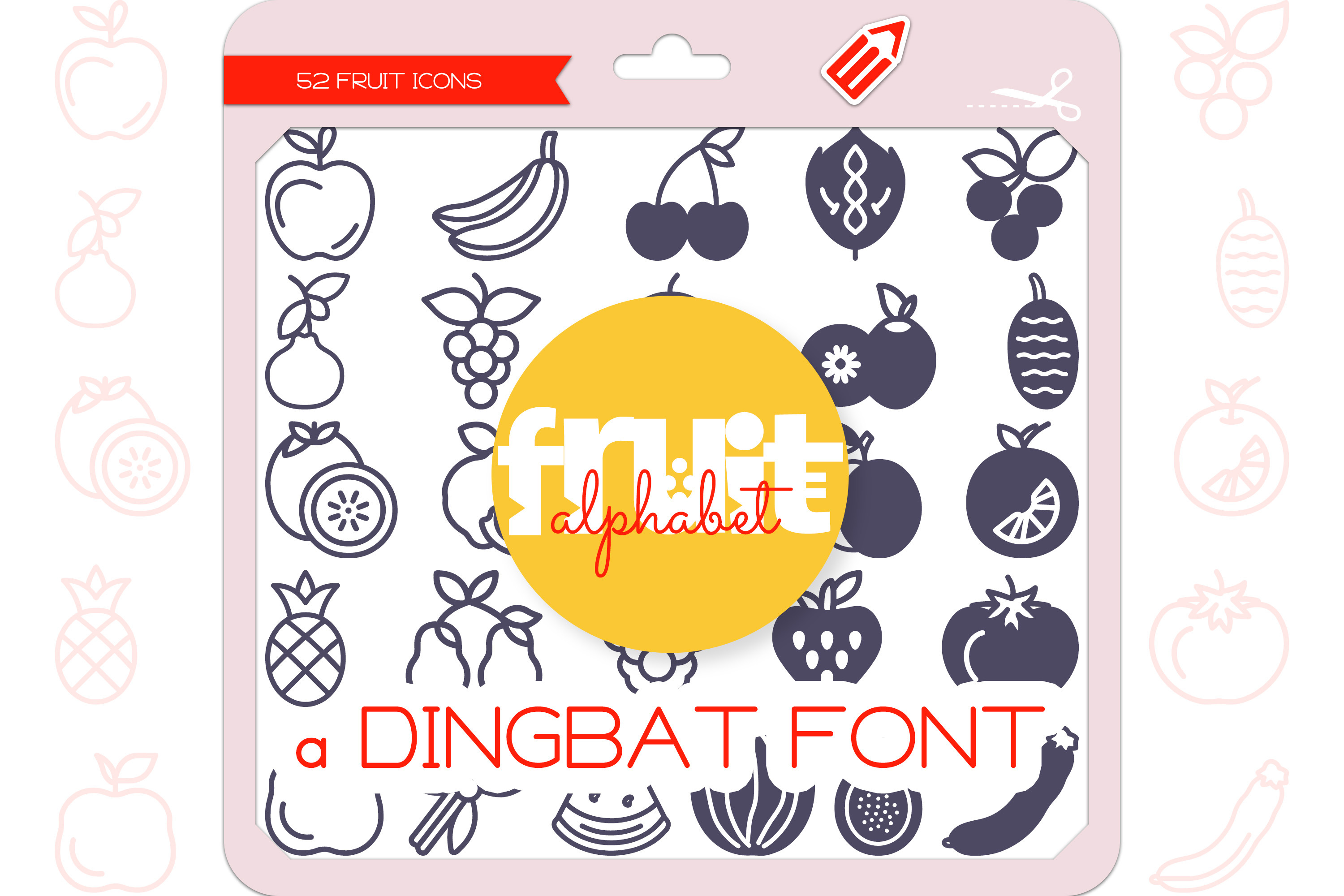
Fruit Alphabet - Dingbat Font
Fruit Alphabet is a unique and cute dingbat font, each Fruit icon representing each letter of the alphabet from A to Z. It contains 52 icons in 2 styles (Outline & Filled-Outline). Add this font to your creative ideas and make your arts outstanding!
The Fruit Alphabet Icons Dingbat Font featuring 26 A-Z things Apple, Banana, Cherry, Dragonfruit, Elderberry, Fig, Grape, Honeydew melon, Indian gooseberry, Jackfruit, Kiwi, Lemon, Mango, Nectarine, Orange, Pineapple, Quince, Raspberry, Strawberry, Tomato, Ugli fruit, Vanilla bean, Watermelon, Xigua, Yellow passionfruit, Zucchini